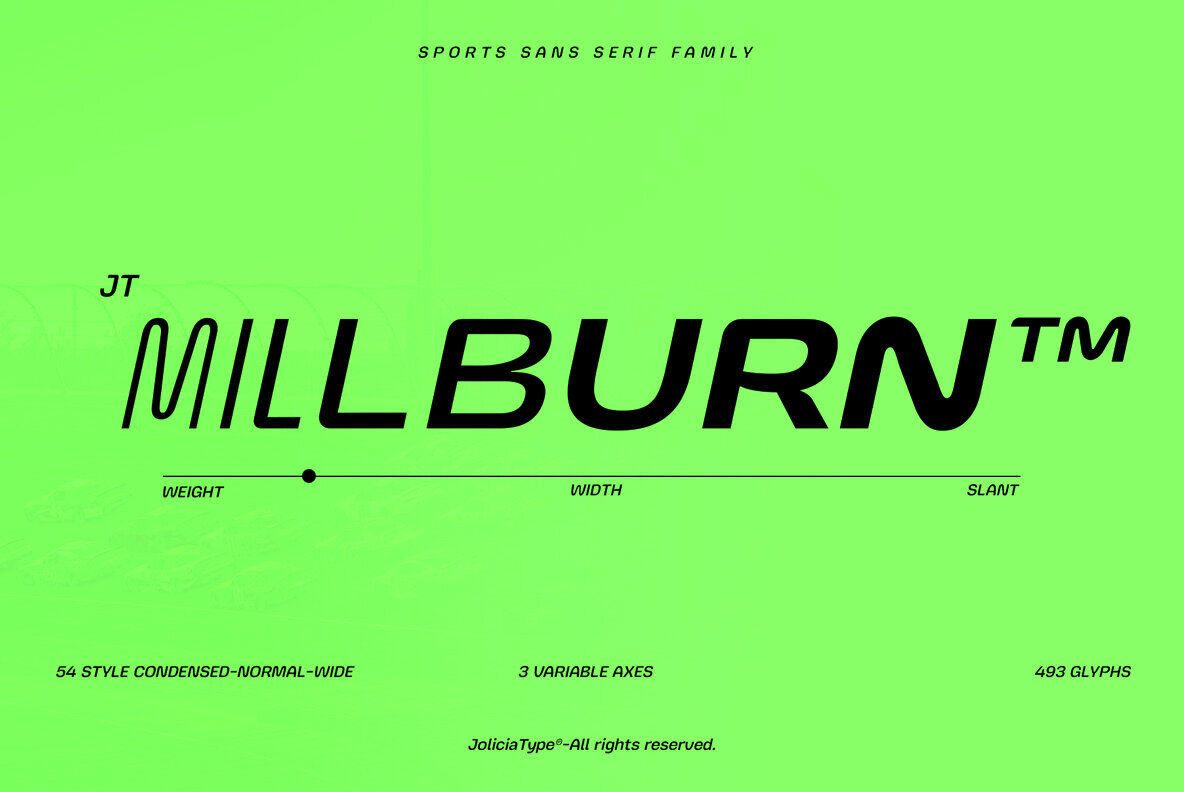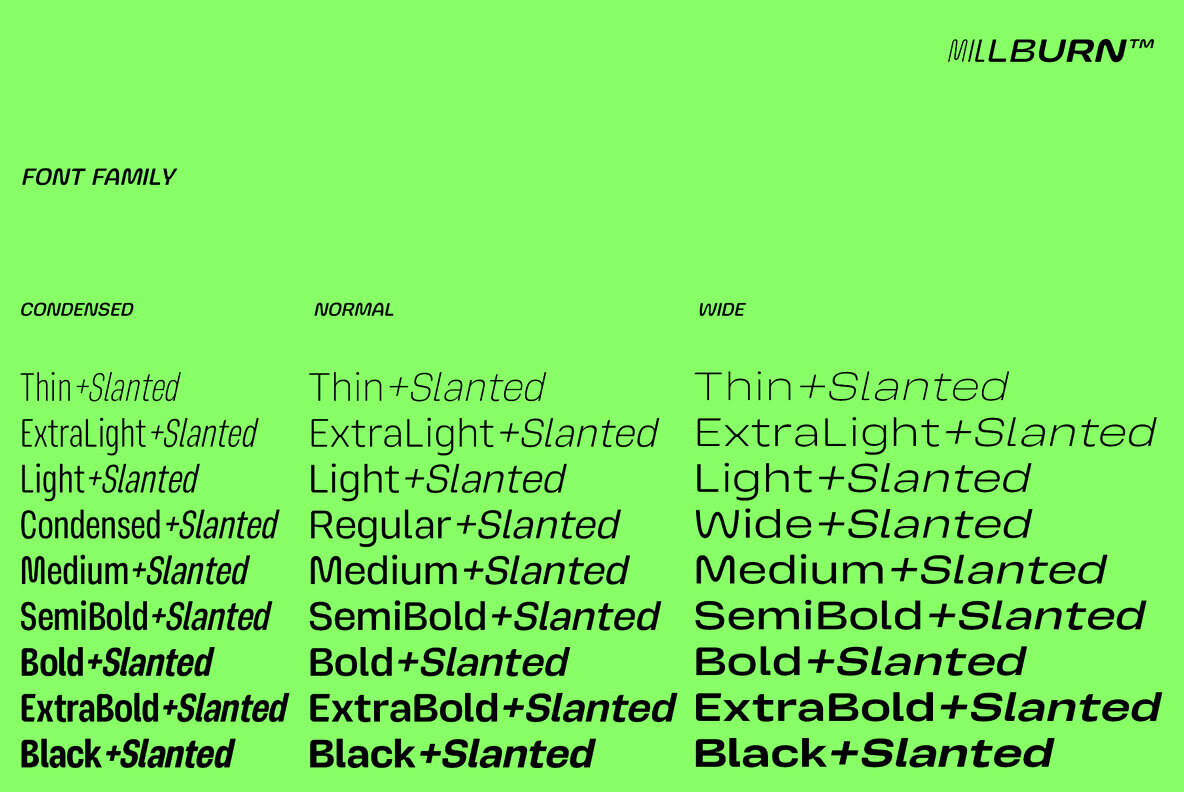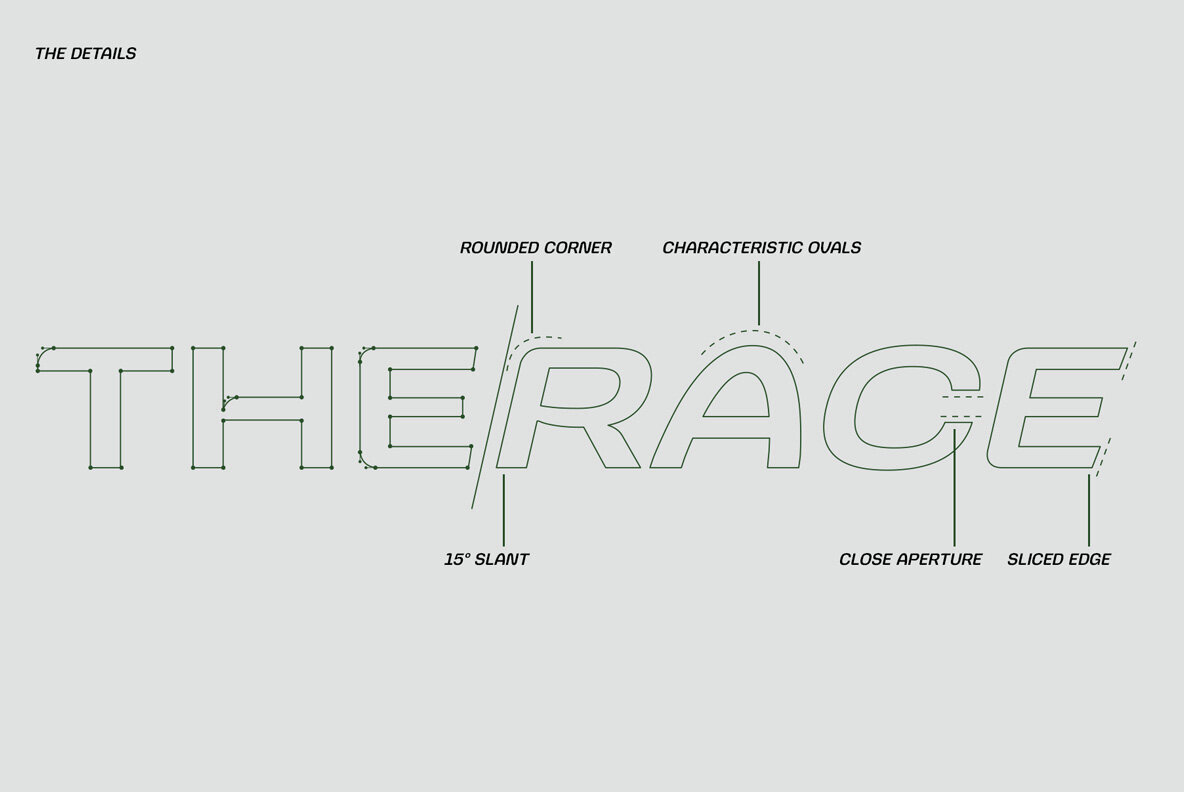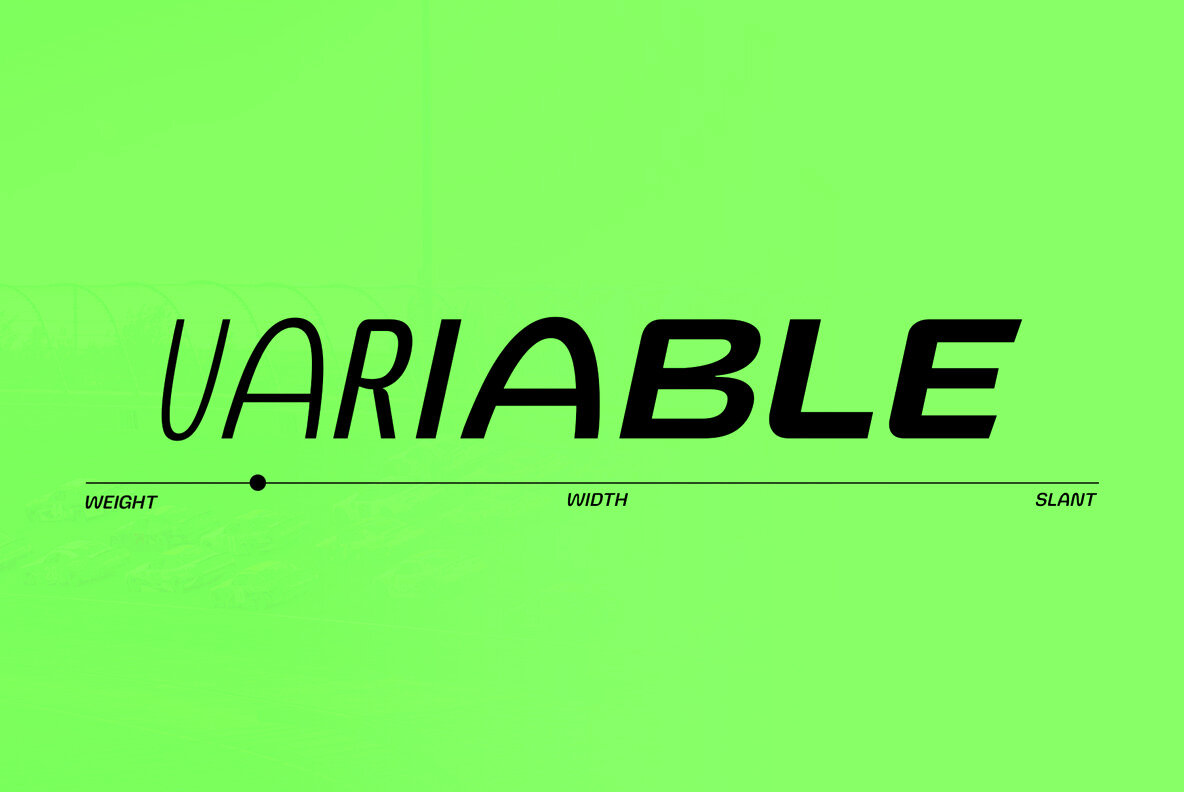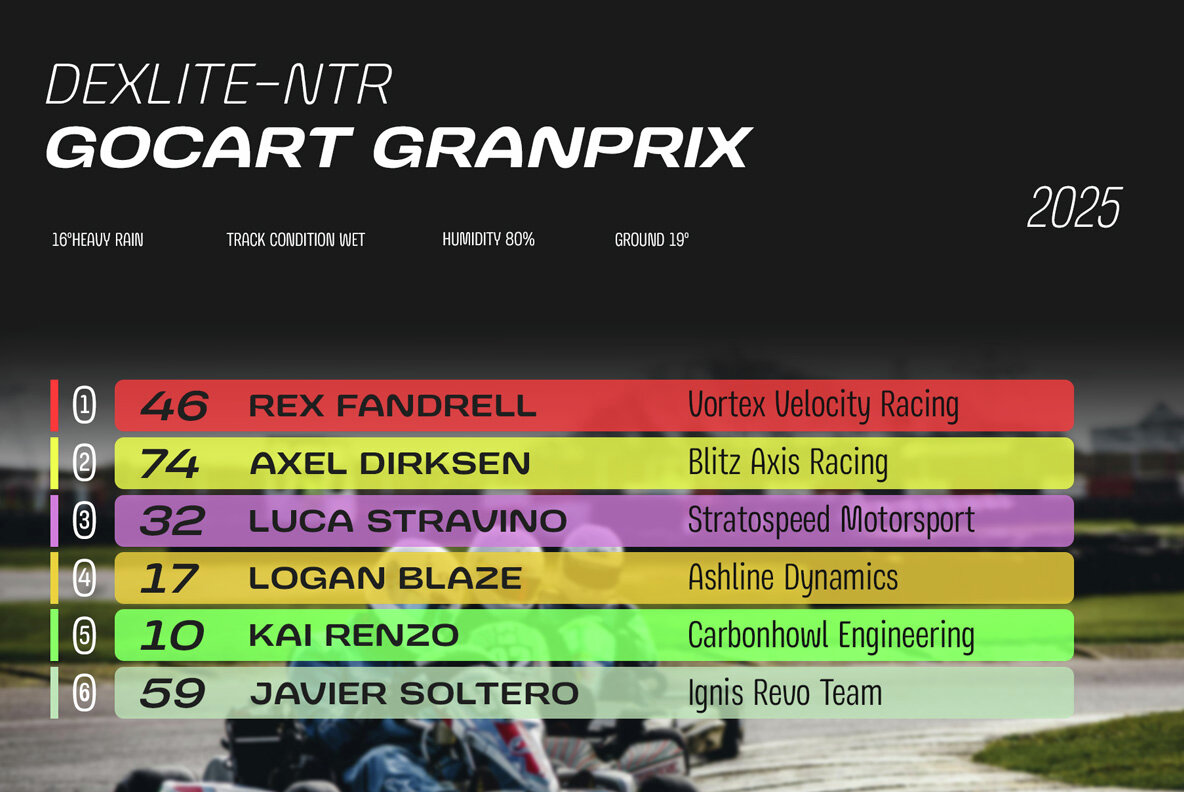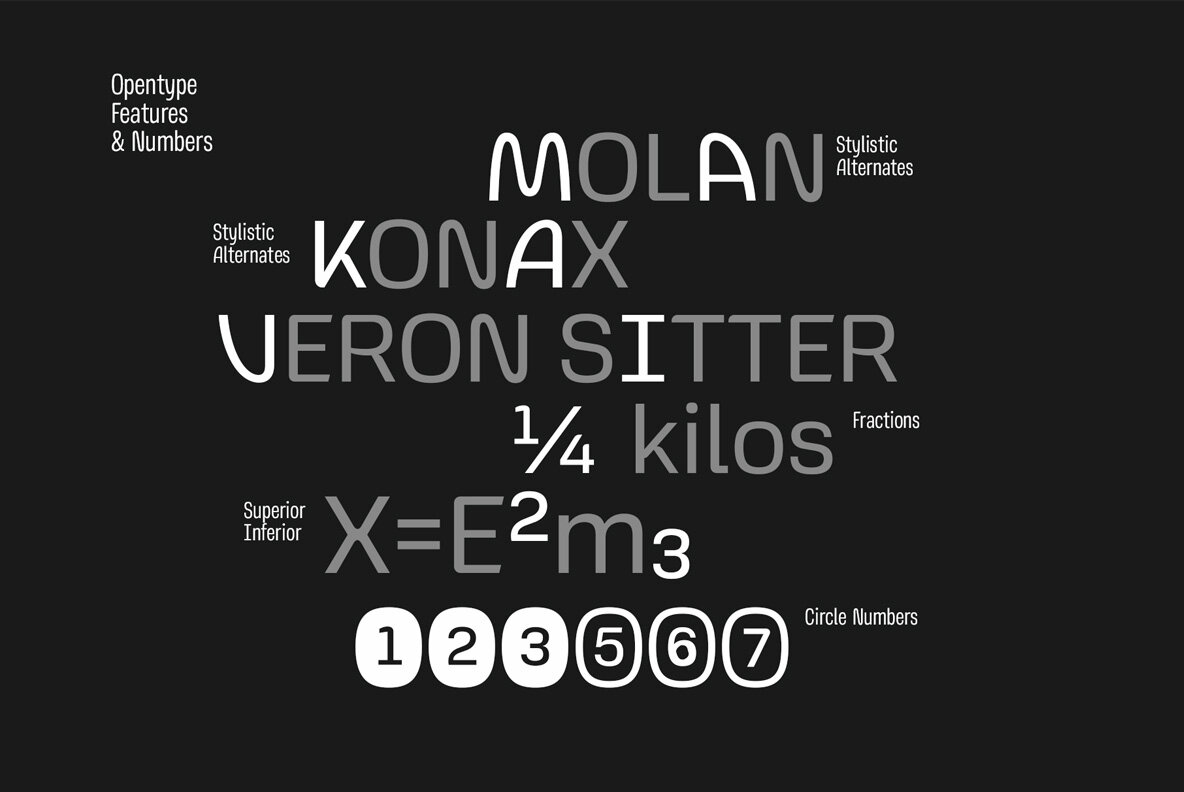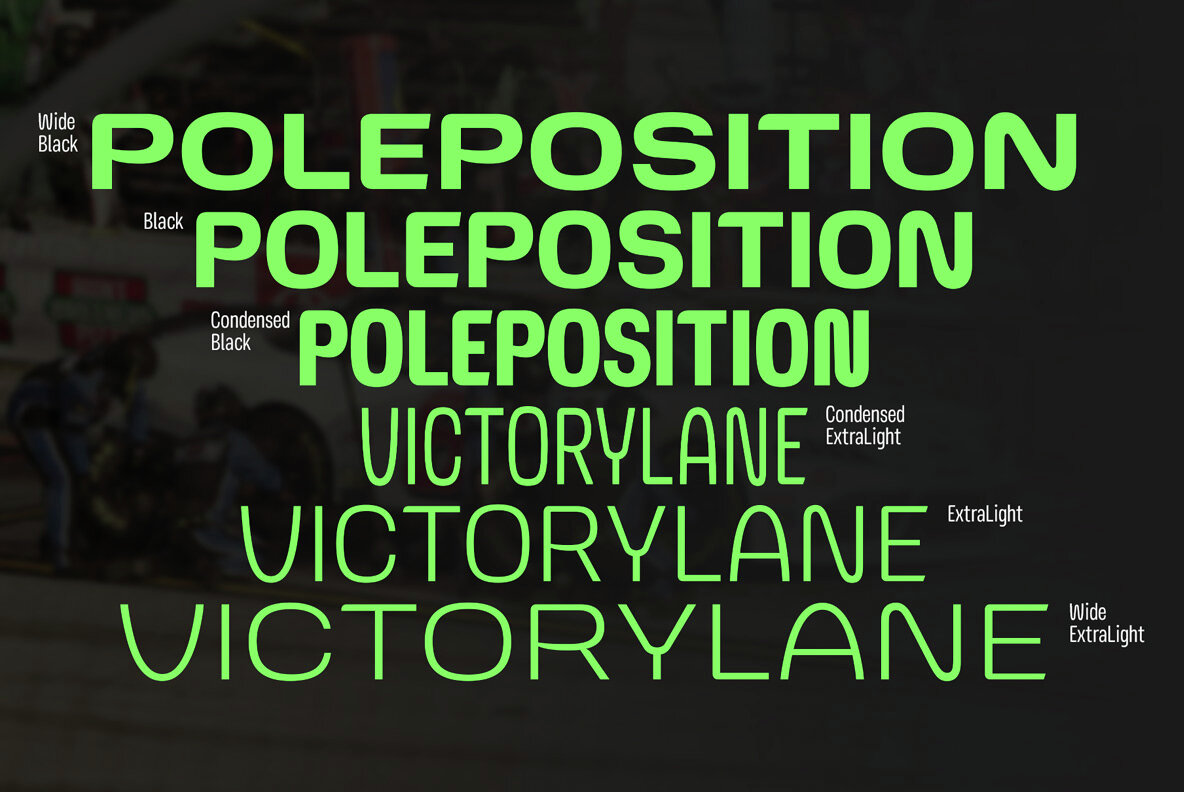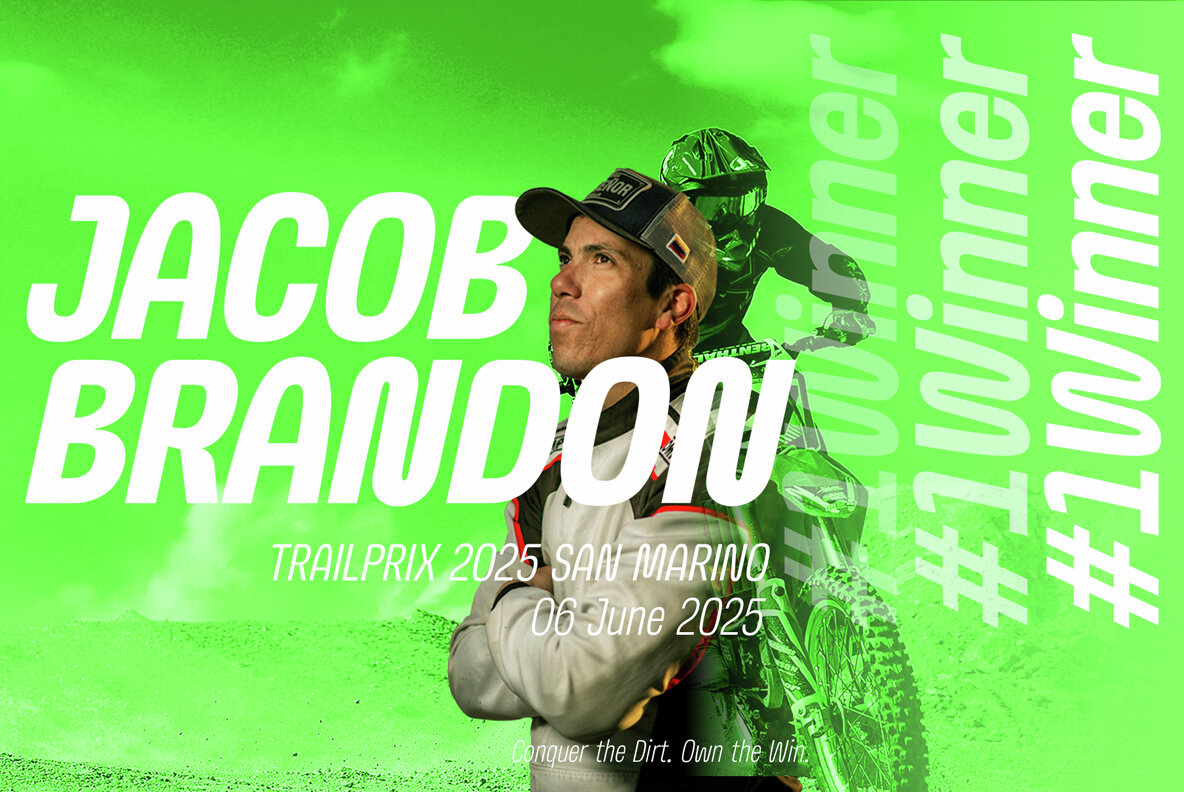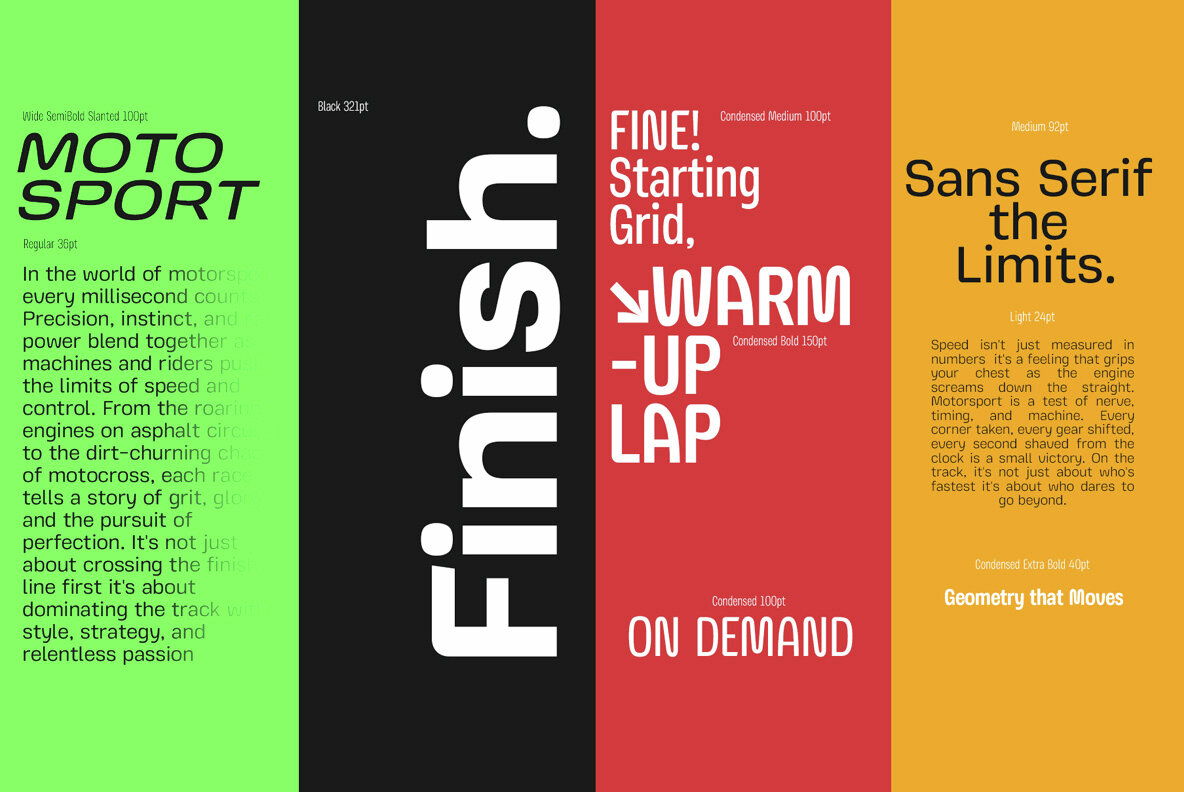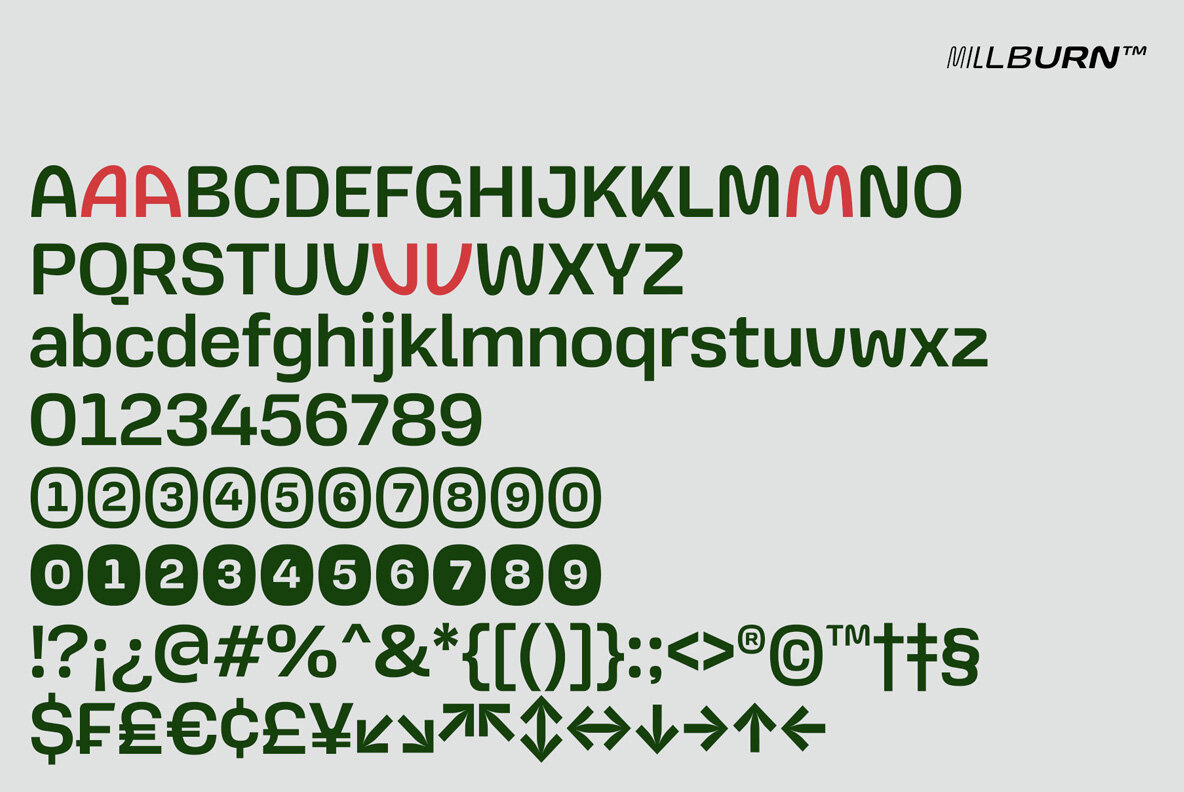
JT Millburn Font
The JT Millburn typeface invigorates designs with its motorsport-inspired aesthetics, offering dynamic versatility through three variable axes: Weight, Width, and Slant. Creatively flexible, it allows designers to adjust its style across various applications, from sports branding to bold editorials. A 15° slant imbues JT Millburn with an energetic sense of motion, ideal for automotive designs and impactful headlines. It boasts a comprehensive family of 54 styles, ensuring ample options for distinctive layouts. Key Features: Designed for both print and digital mediums, JT Millburn combines performance-driven functionality with a modern aesthetic.JT Millburn: Motorsport-Inspired Typeface